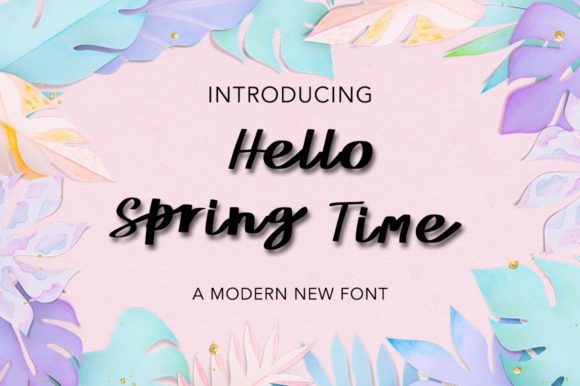
Step into the world of undeniable charm with Hello Spring Time, a captivating script font that will effortlessly transform your designs into exquisite masterpieces. Its meticulously crafted curves and playful strokes evoke a sense of joy and warmth, making it an ideal choice for a myriad of creative endeavors.
Escape the mundane and embrace the extraordinary with Hello Spring Time. Its versatility knows no bounds, seamlessly adapting to logos, headings, t-shirts, and a multitude of other applications. Imagine your brand adorned with its charming aesthetic, captivating customers and leaving an unforgettable impression.
Unleash your creativity and let your imagination soar with Hello Spring Time. Its essence is perfectly suited for adding a touch of whimsy to your DIY projects, breathing life into invitations, greeting cards, and home décor. Transform ordinary moments into cherished memories, adorned with the enchanting allure of this captivating font.
Whether you seek to express your personal style or captivate the hearts of your audience, Hello Spring Time is the font you've been searching for. Its undeniable allure will enhance your designs, adding a spark of warmth and a dash of delight.
Embrace the beauty of Hello Spring Time and let its charming spirit elevate your creations to new heights. Its effortless elegance will leave an enduring mark, ensuring that your designs stand out from the crowd and resonate with your audience in an unforgettable way.